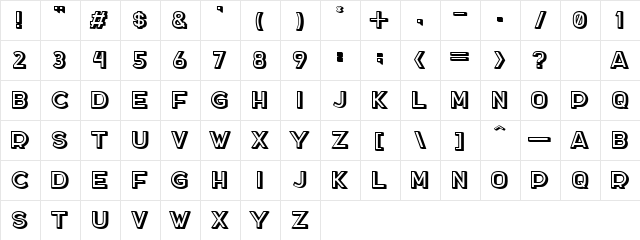
Complete DOCKER THREE glyph index. Displaying only characters natively supported by DOCKER THREE font.
DOCKER is a composed and adaptable typeface that performs quietly and consistently across a wide range of design contexts.